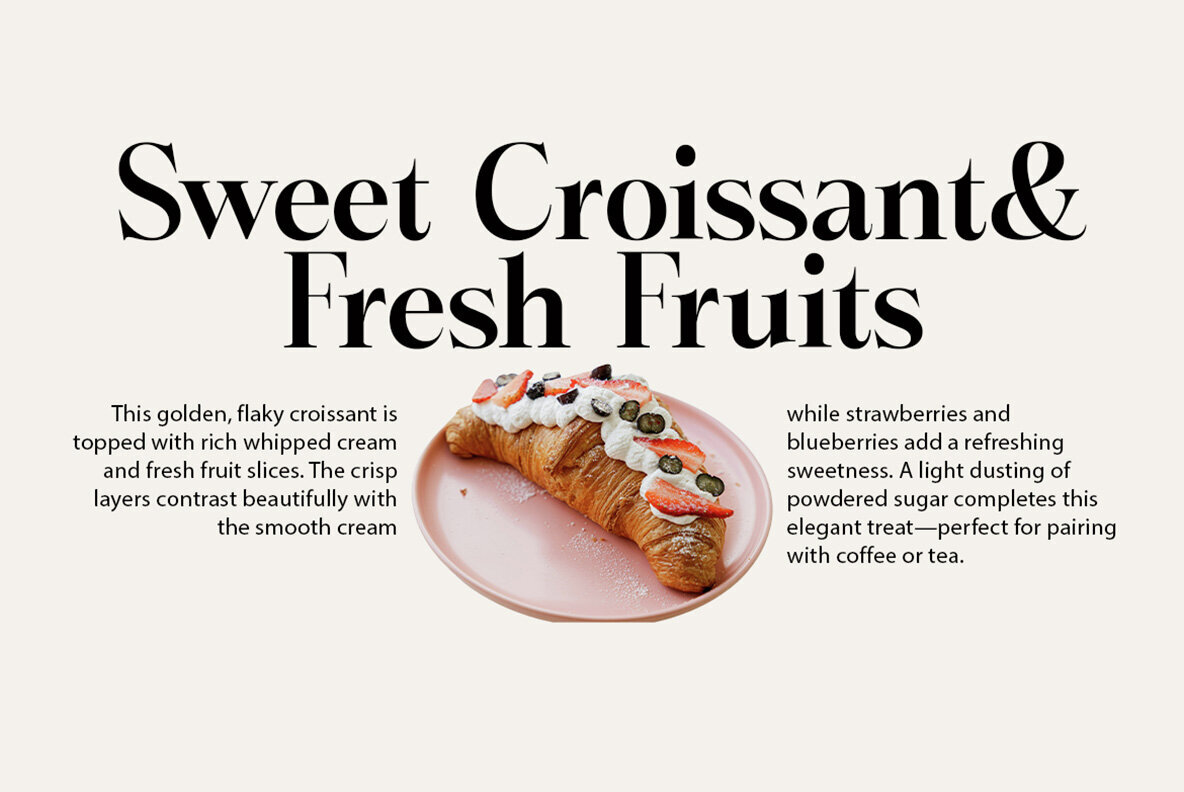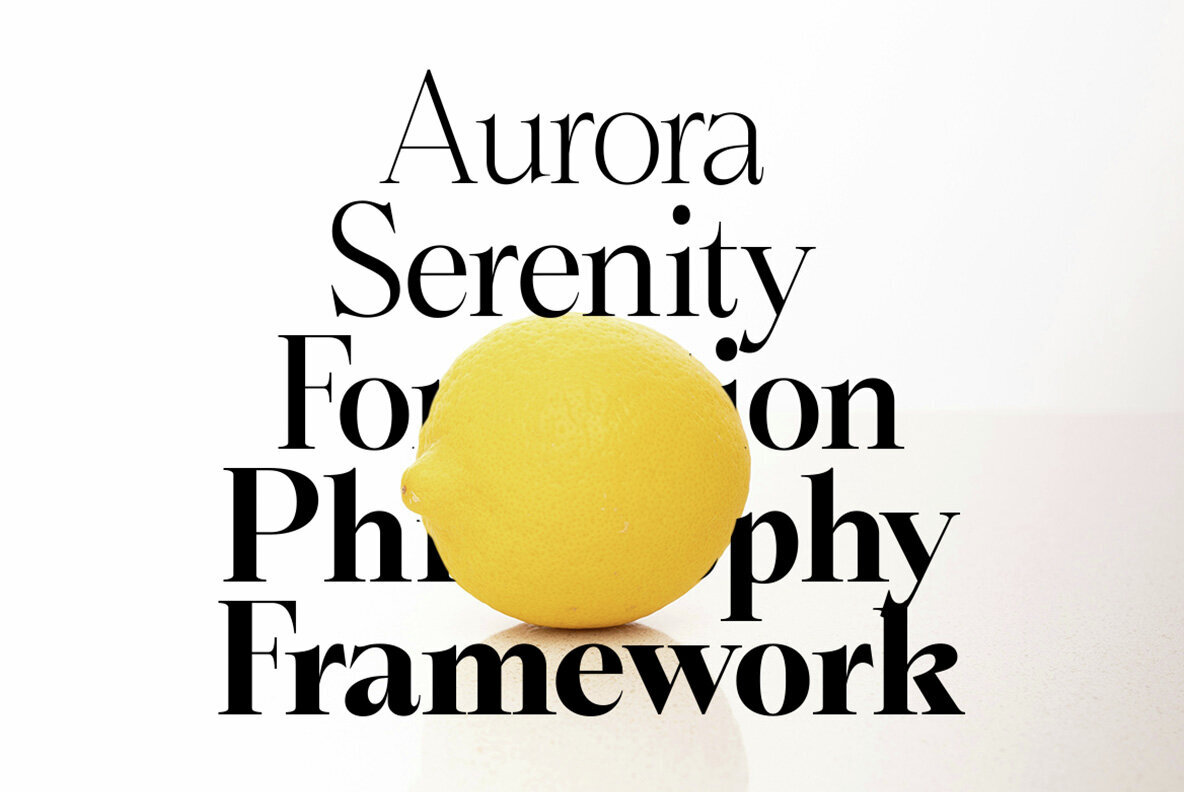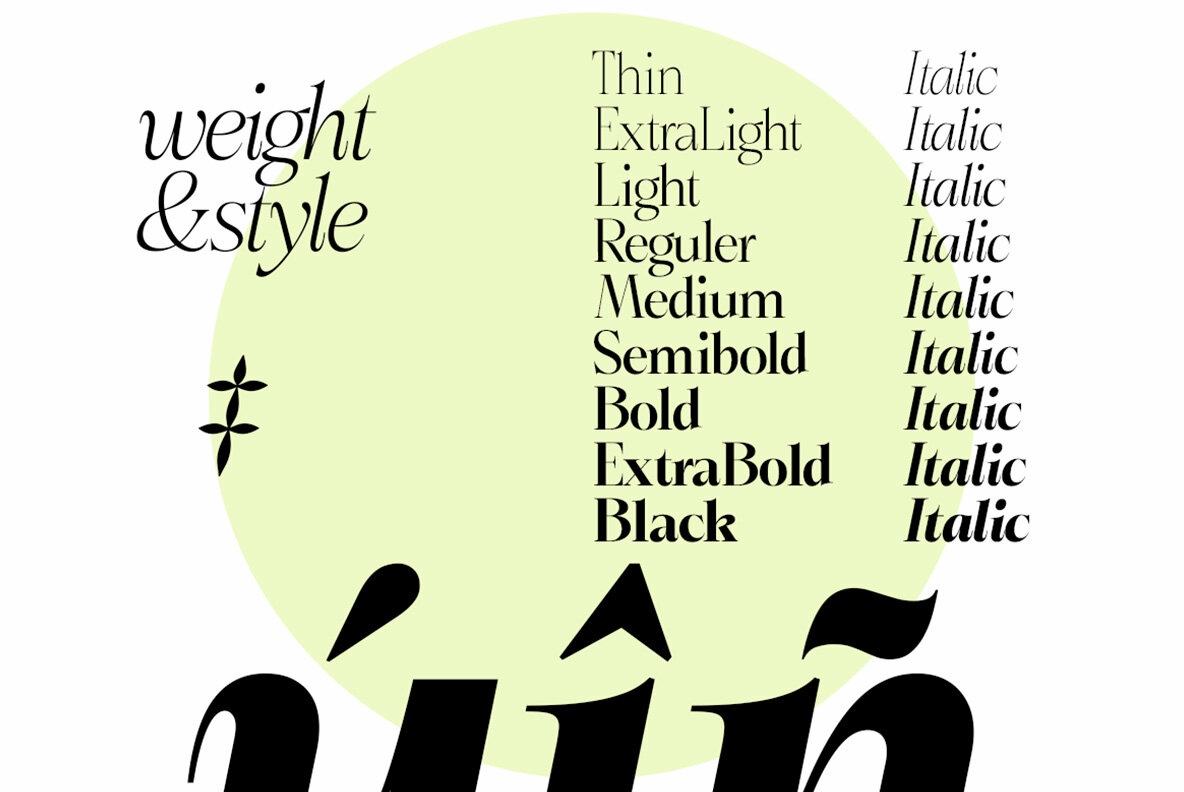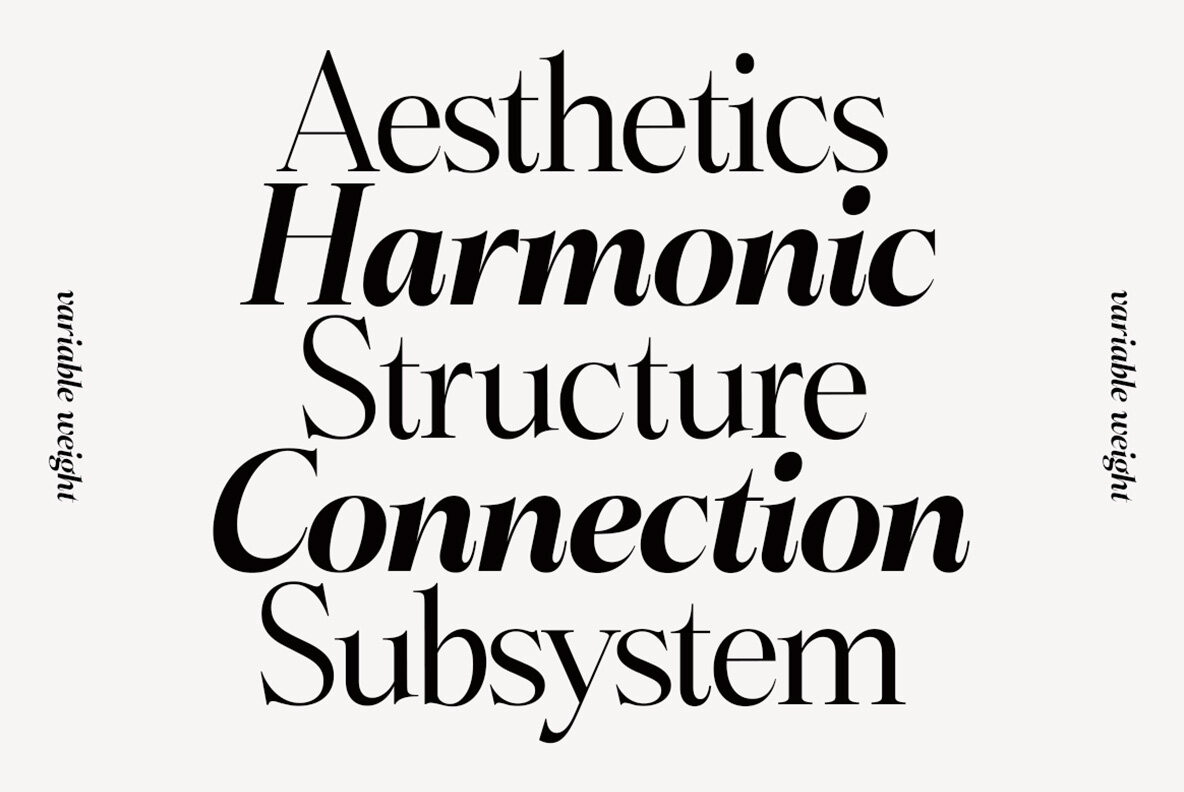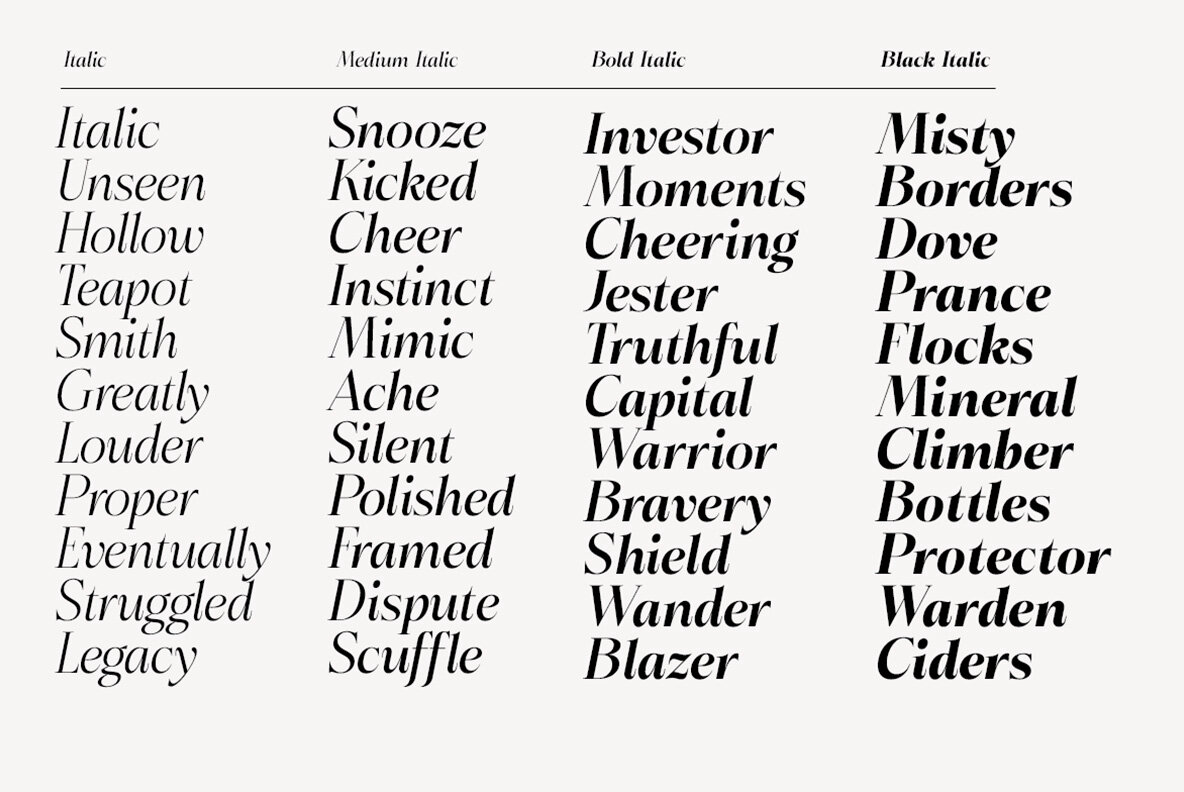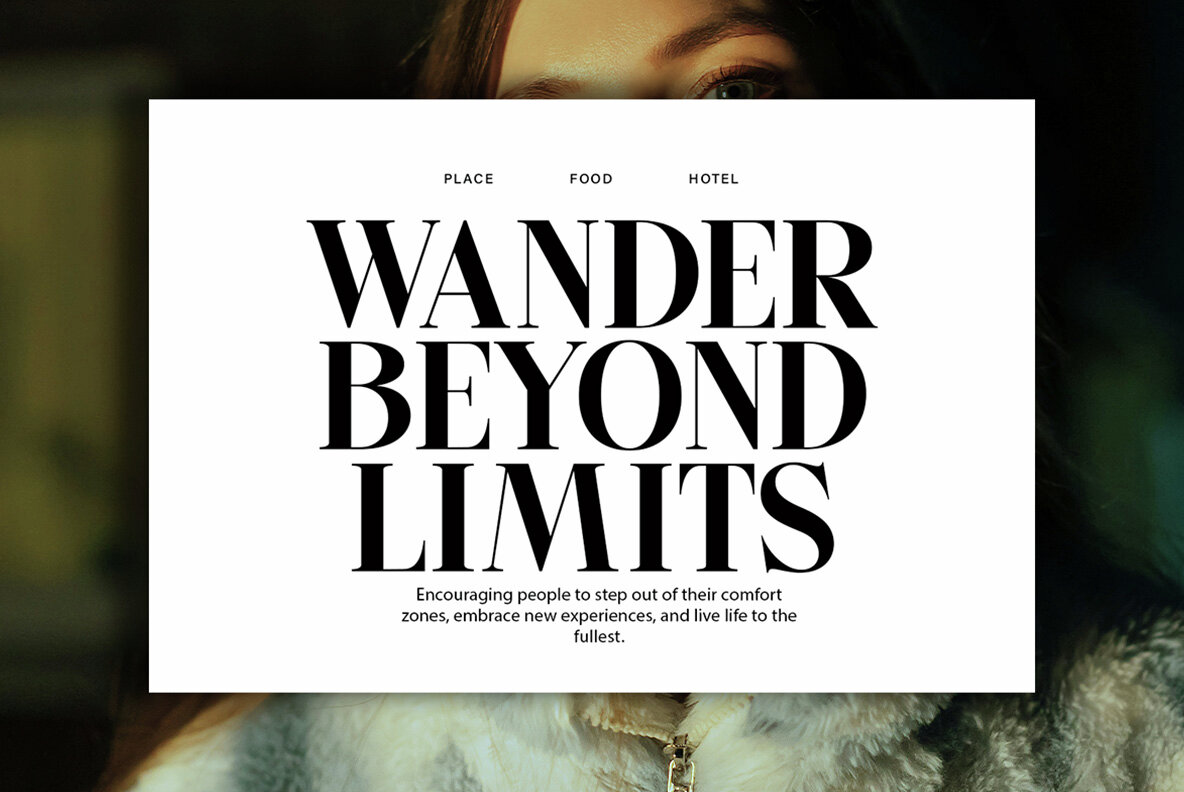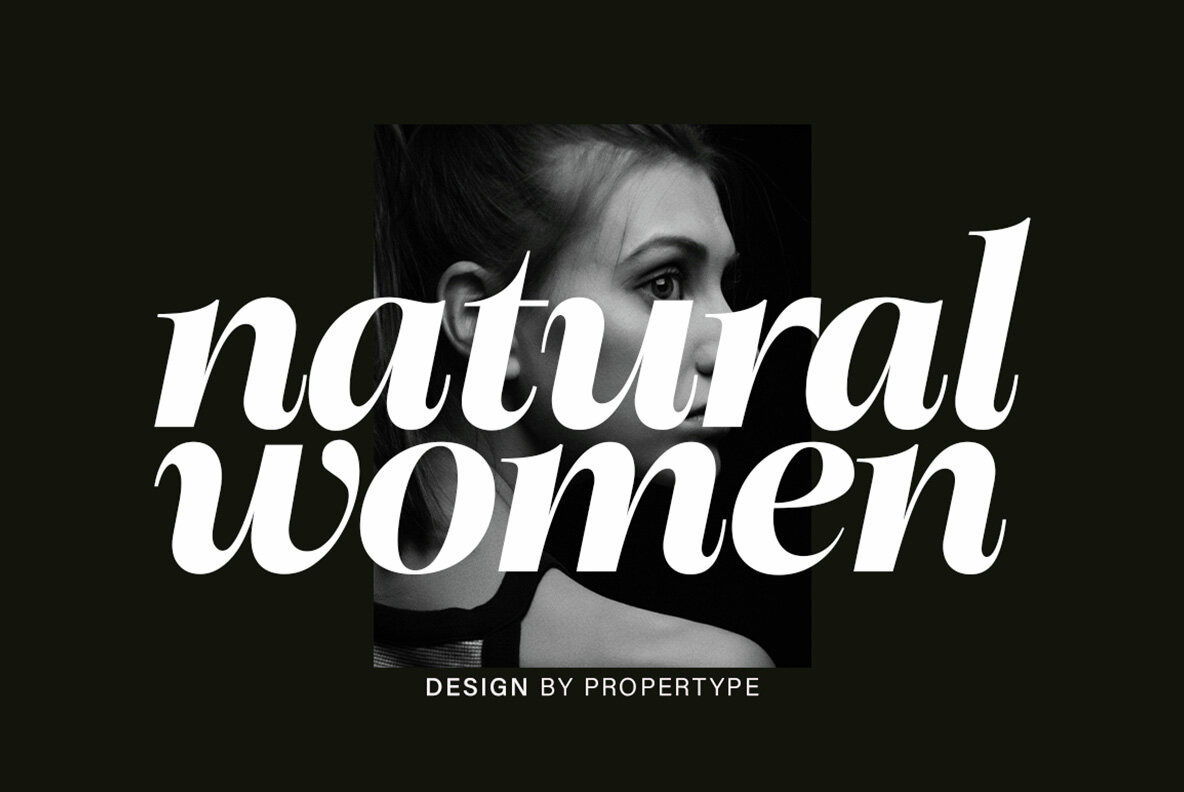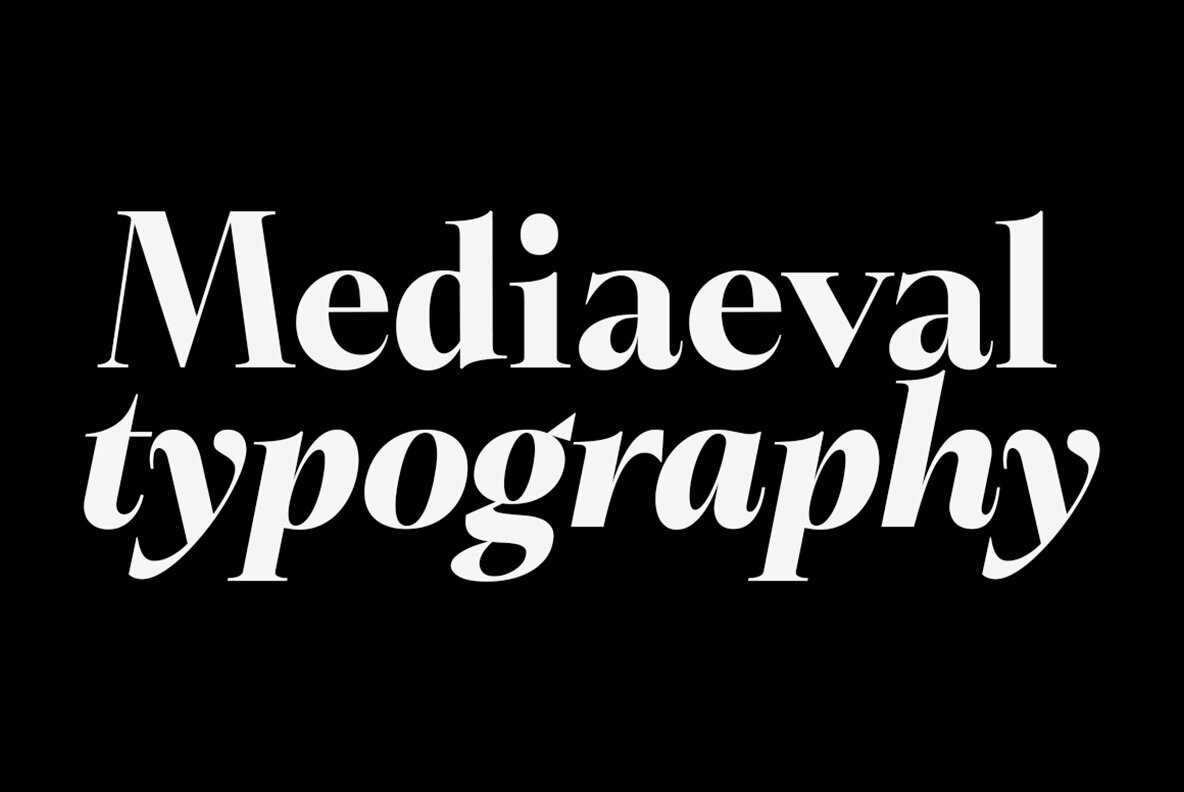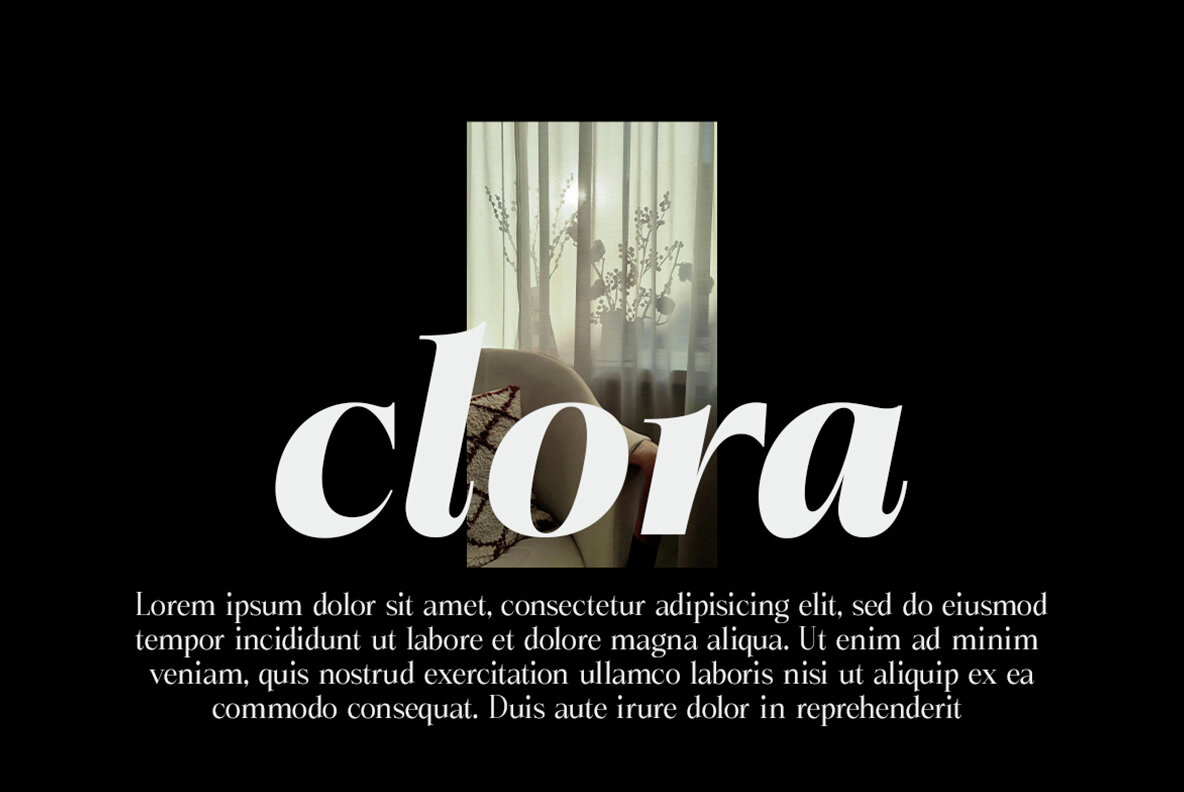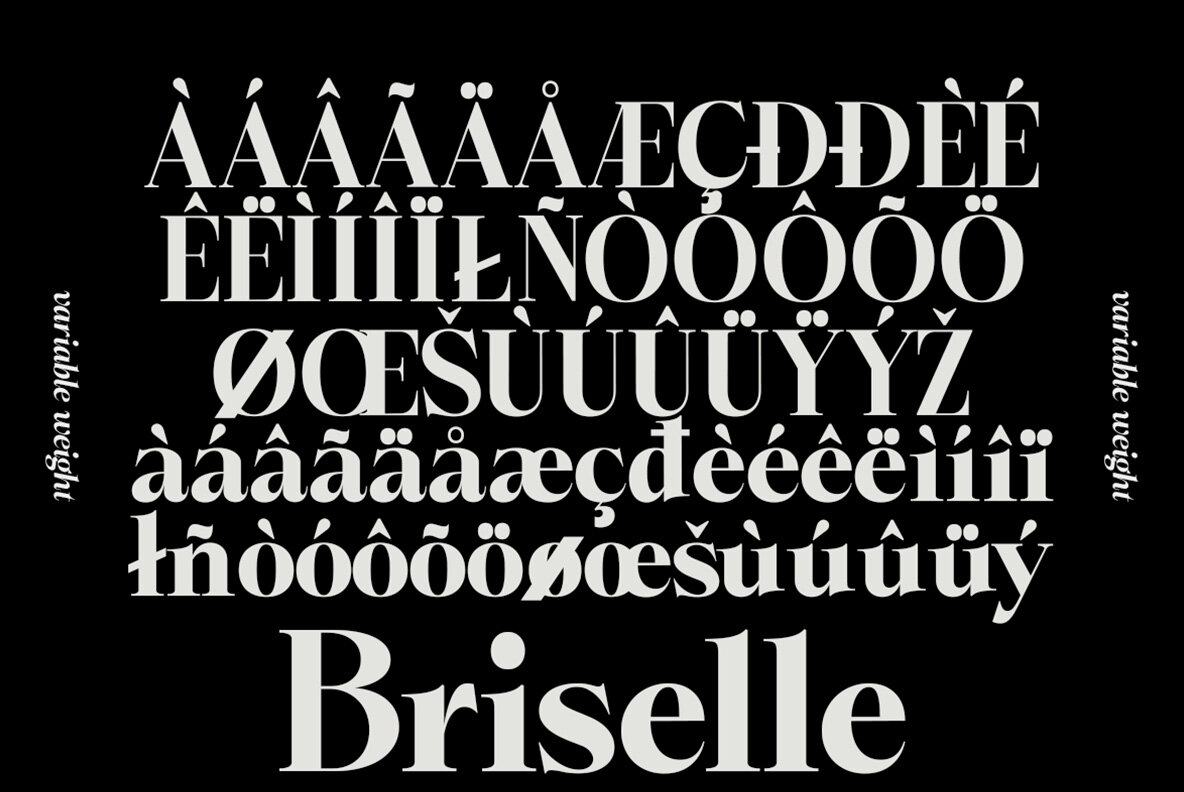
Briselle Font
Briselle Font is a high contrast typeface inspired by transitional and contemporary typefaces. This typeface expands its usage by providing thicknesses ranging from thin to black. Natural curves, bulging stems, and slants, become more prominent as the letter thickness increases. While thinner thicknesses have lower contrast and optical correction to create a warm and soft look. Featuring beautiful italics, excellent weights, and extensive language support. Briselle Font excels in display settings such as headlines, titles, branding projects, Logo designs, packaging, magazine headlines, advertisements, short or long texts. Briselle Text also comes with 18 Variable versions to make it easy for designers to explore and refine beautiful designs, revealing many visual nuances and hidden secrets.